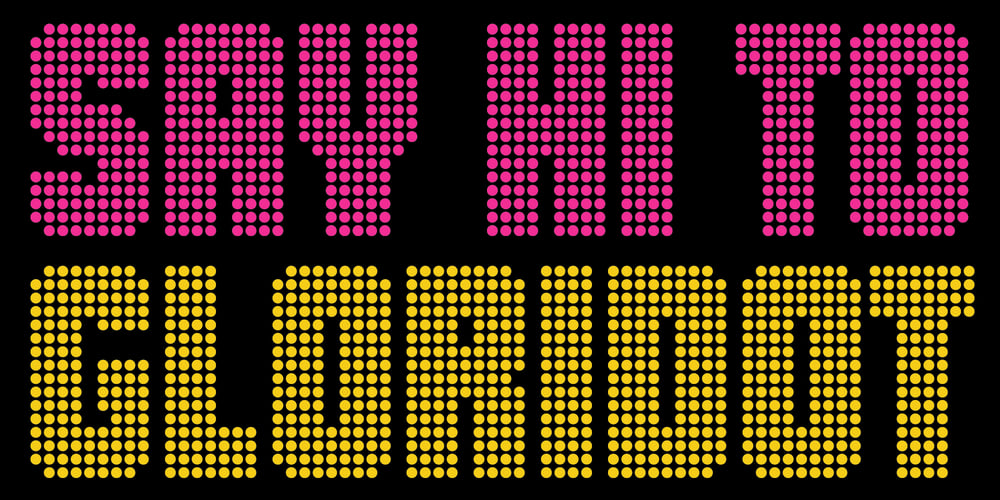
Gloridot Font Family was designed by Dan Rhatigan and published by Bijou Type. Gloridot contains 1 styles and family package options. Gloridot is meant for big, solid headlines and titles. The design began with a handful of letters from an unidentified typeface on old magazine cover that Dan Rhatigan was trying to recreate for an issue of his zine, Pink Mince. The grid of dots that formed those few glorious letters at first seemed like a simple system for constructing an alphabet, then grew into a fascinating puzzle as the system expanded into a typeface supporting about 505 languages, plus symbols that can be used to create borders and patterns.